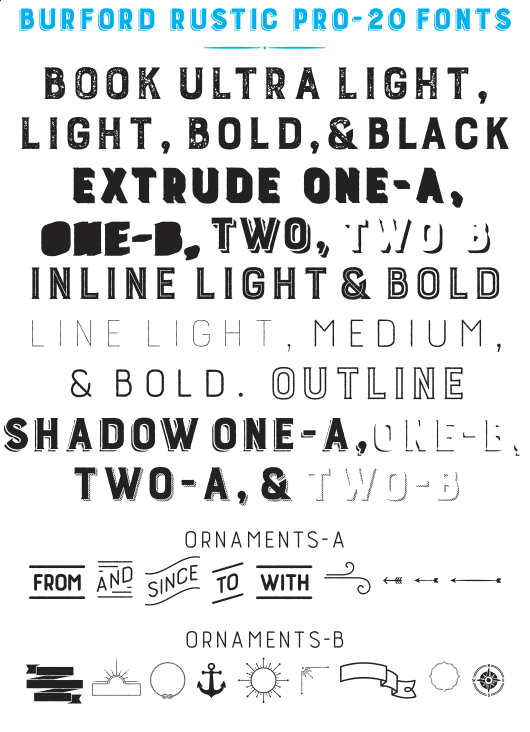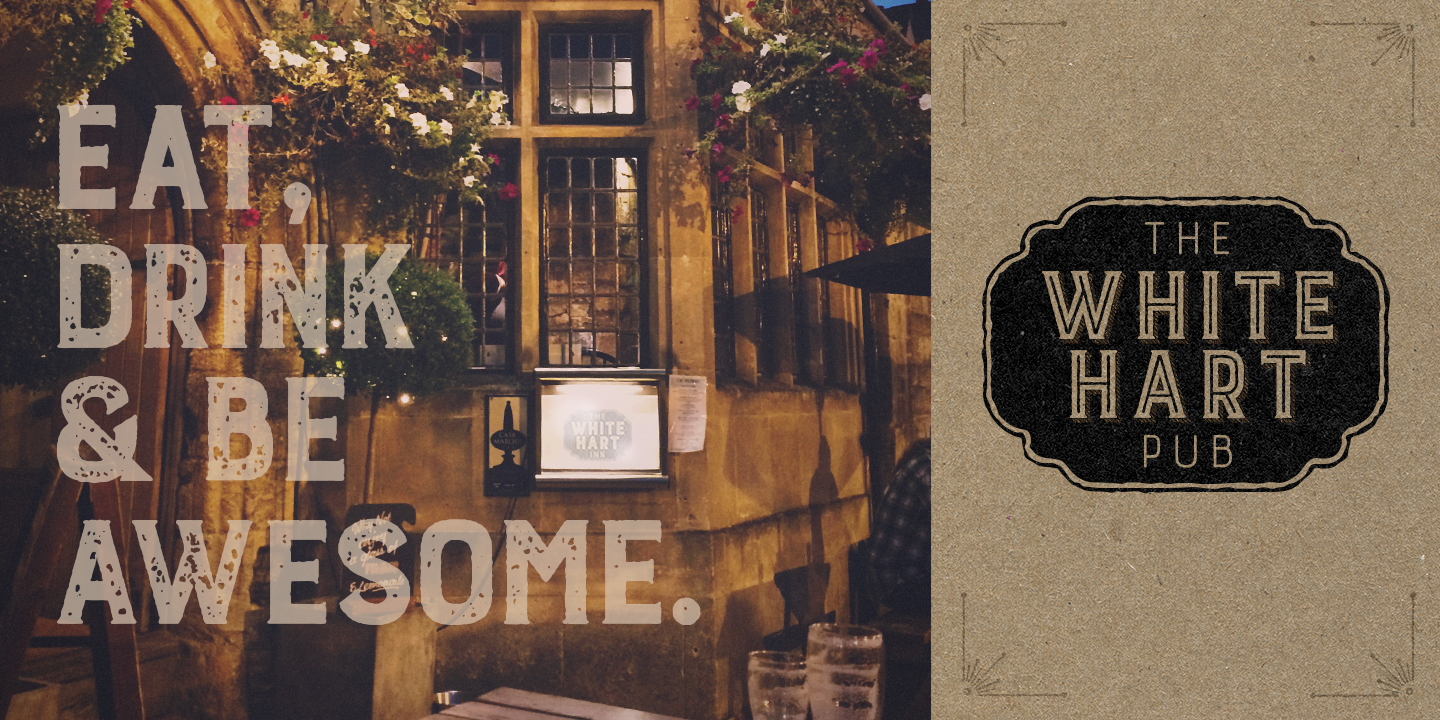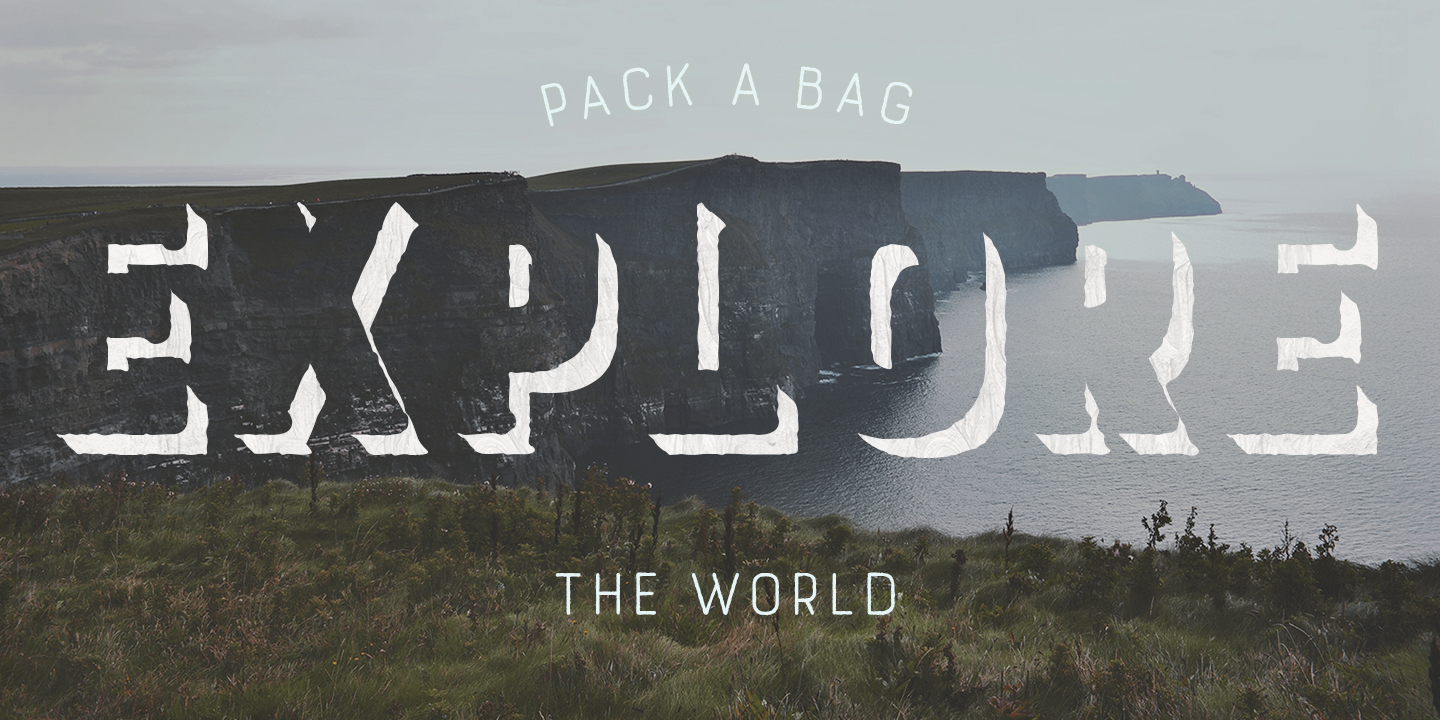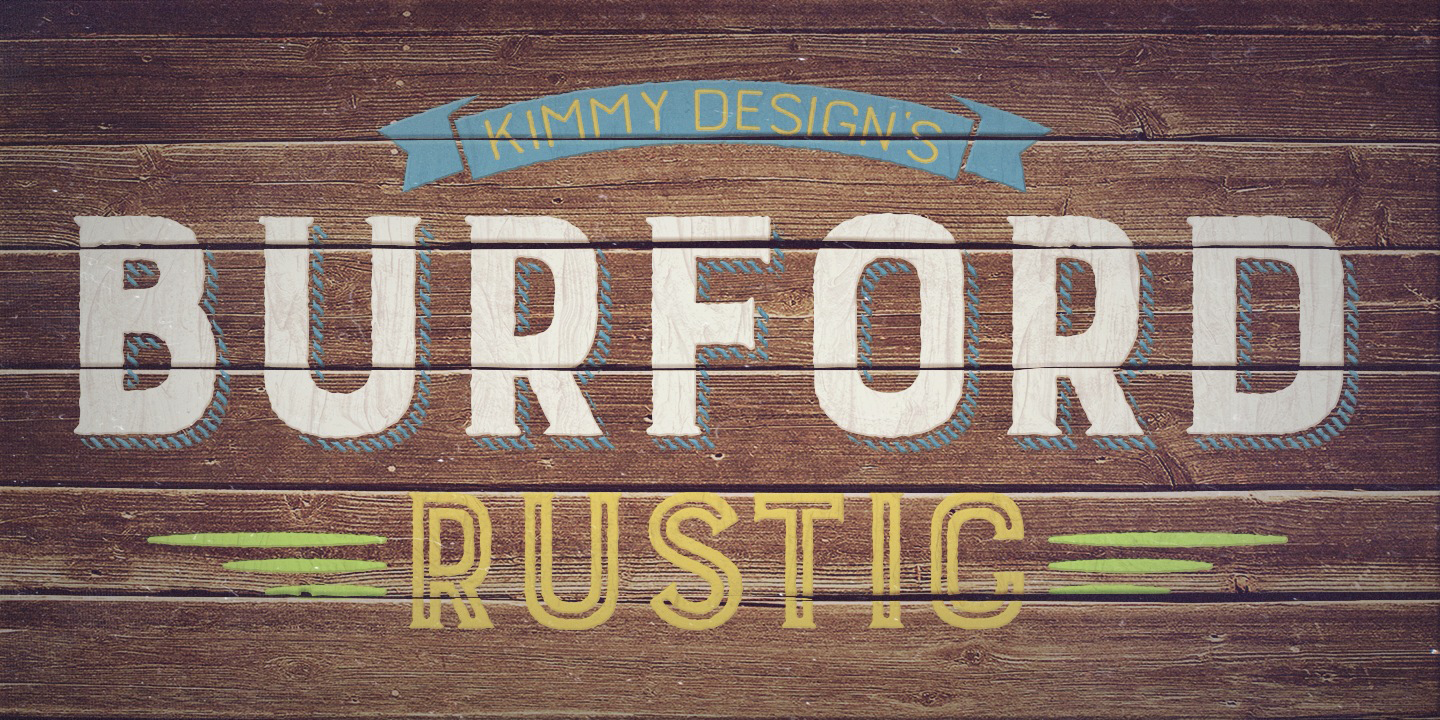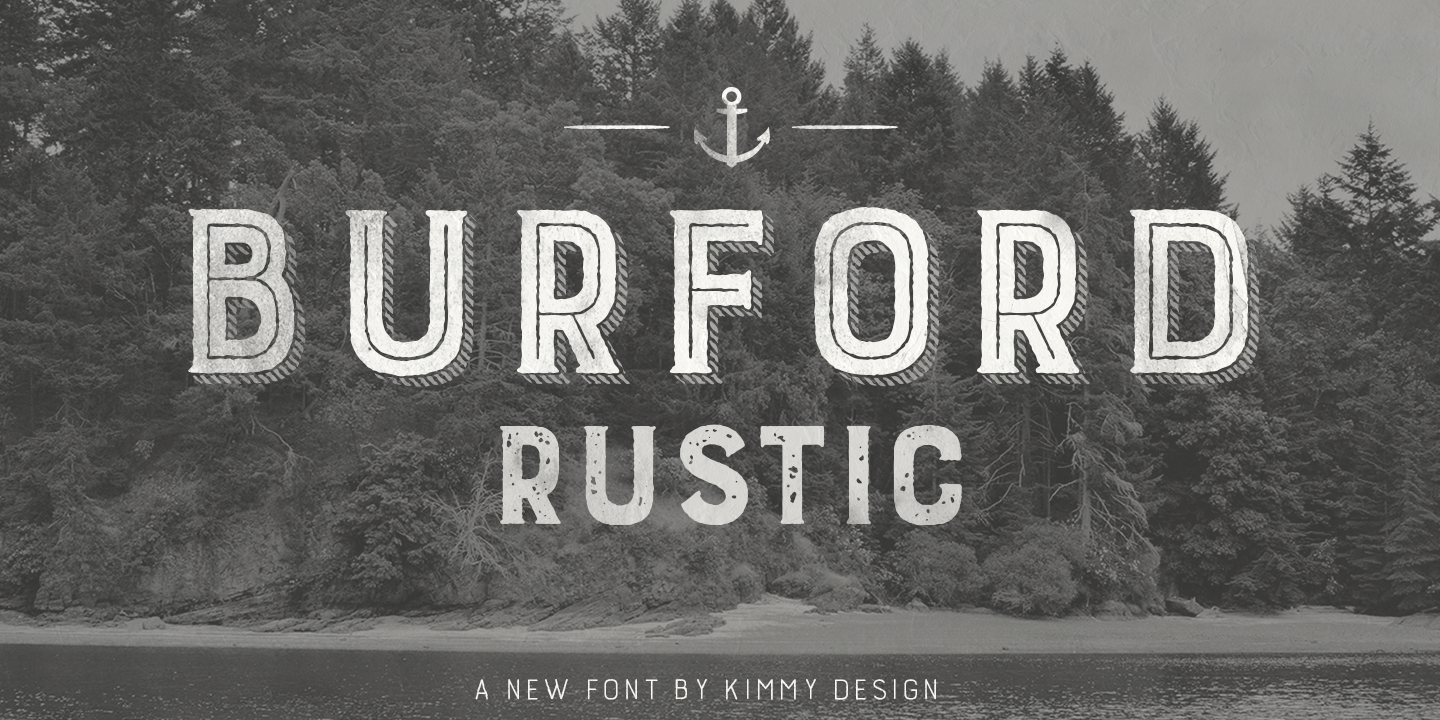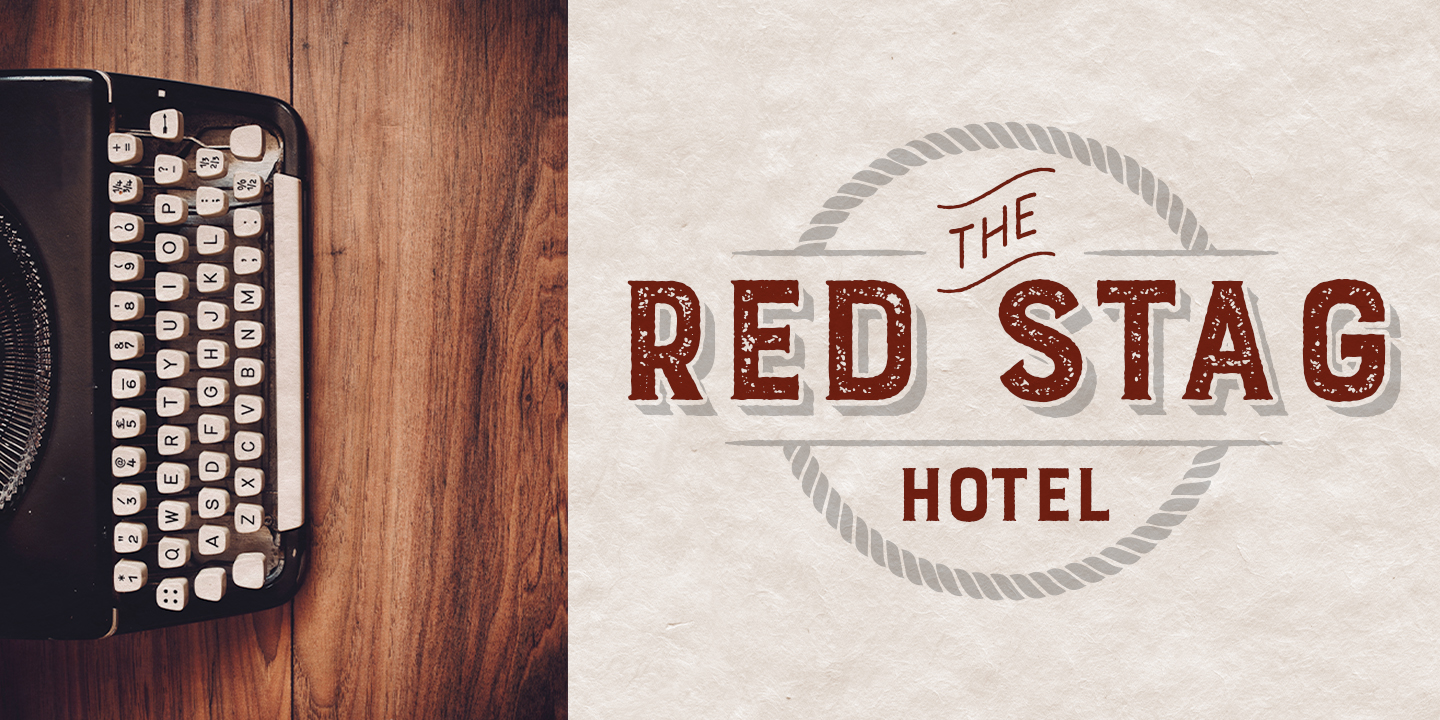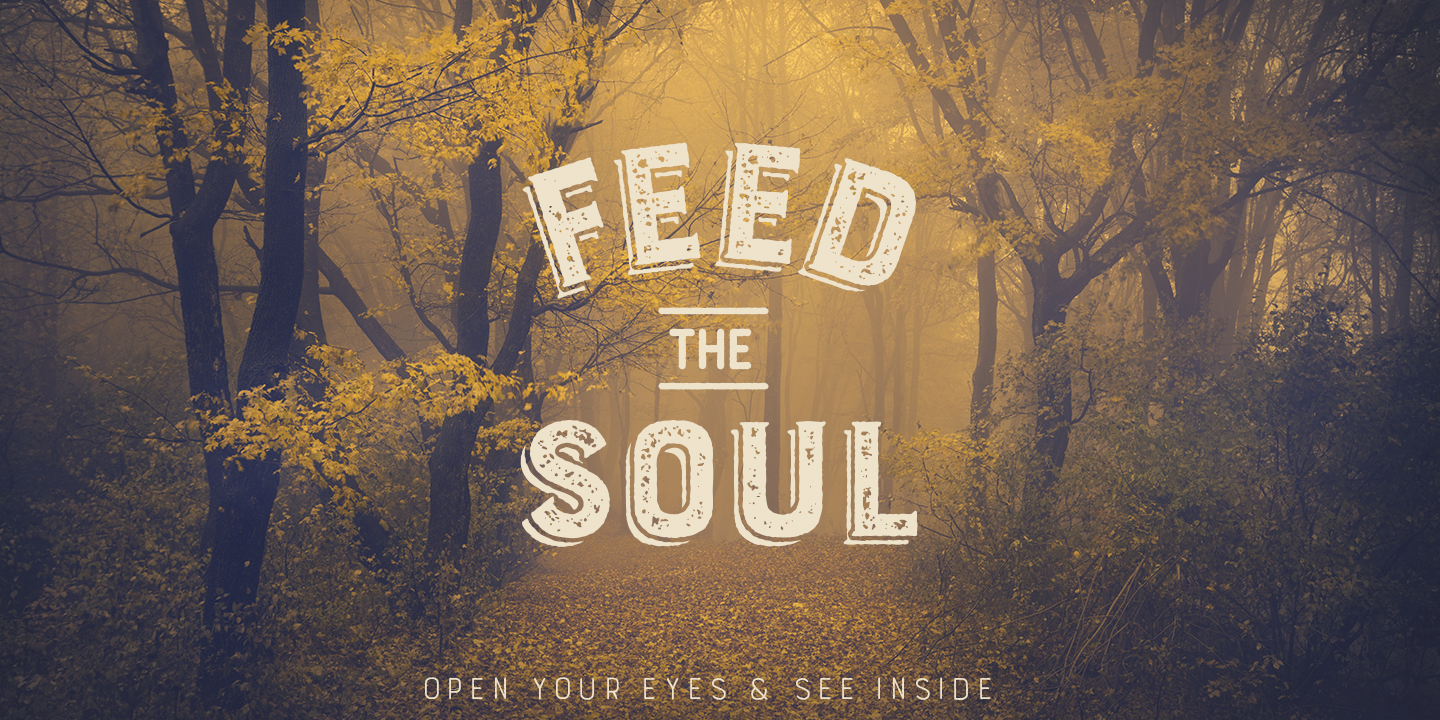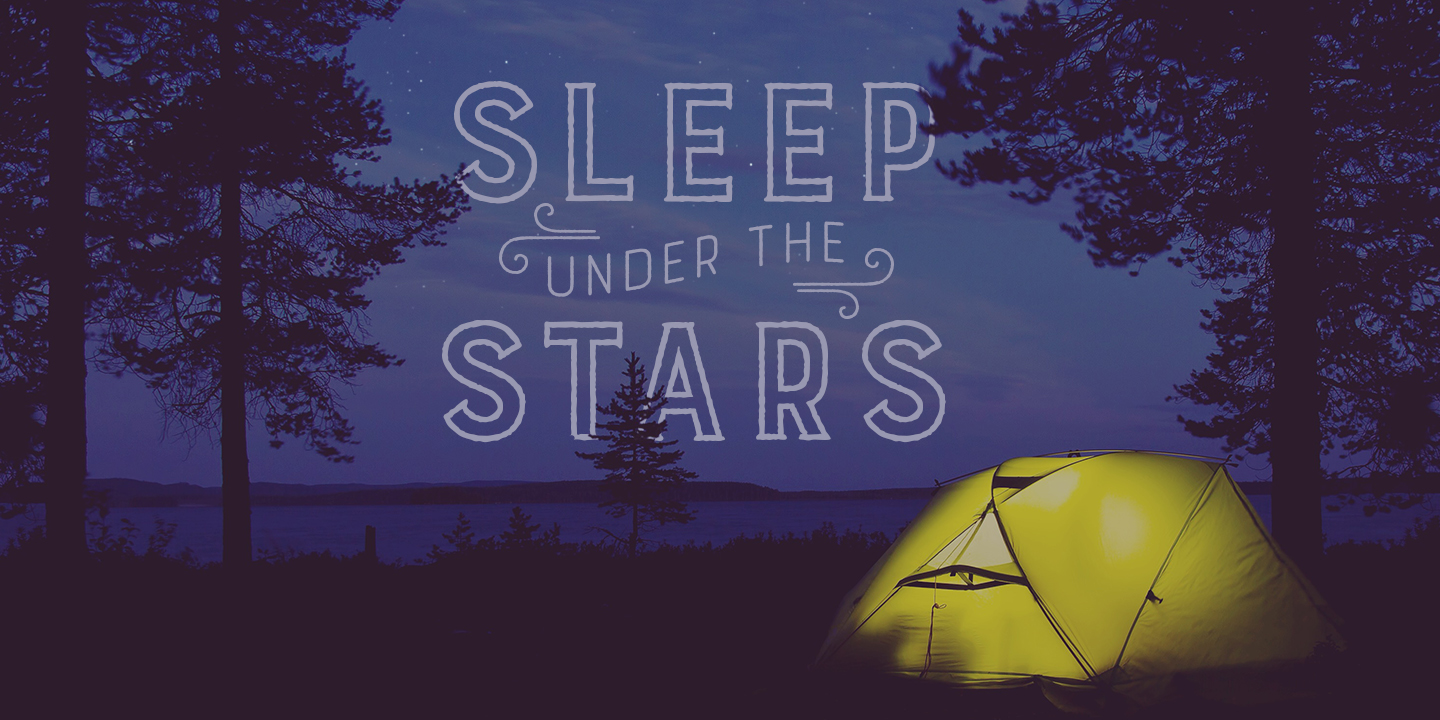
Burford Rustic Pro Family Pack (20 fonts)
From Kimmy Design
Burford Rustic Basic package is created for users who don’t have access to programs with Opentype capabilities and are unable to use the layering effect. Burford Rustic can still be a powerful tool as each font can also be used on it’s own. It includes every font file not needed for the layering effect.
The Burford Rustic Ornaments uses all basic keyboard characters - around 100 total elements per set. They are designed to go specifically with Burford Rustic and use the same textured edge. The set includes: banners, borders, corners, arrows, line breaks, catchwords, anchors and many more!